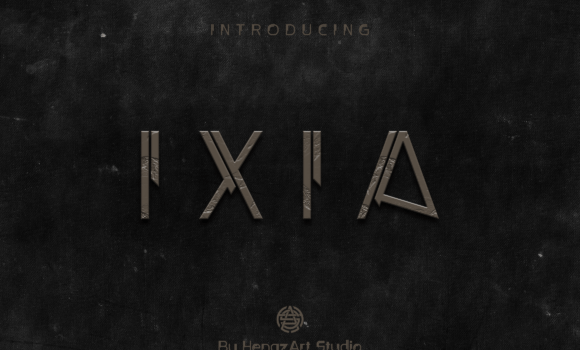
Ixia Font – Free Download Introduction to Ixia Font IXIA is a bold and futuristic display font with a striking, geometric structure that channels a high-tech and industrial edge. 📸 Preview Gallery 6 images 📌 Product Name Ixia Font 👤